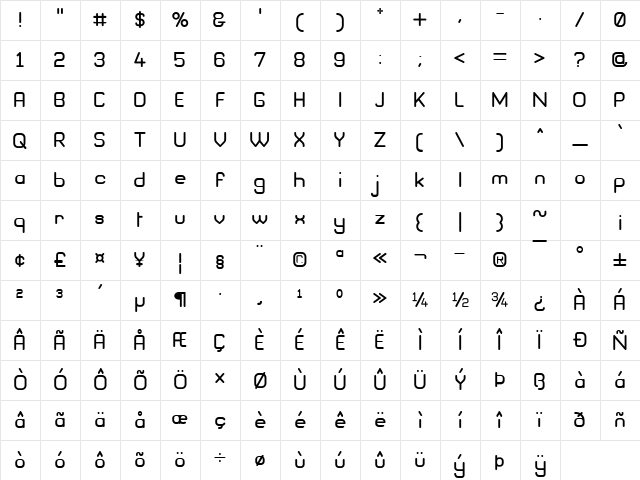
Brave New Era G98 Regular Free Font
Brave New Era G98 Regular
Design Context for Brave New Era G98
Brave New Era G98 is a composed and adaptable typeface that performs quietly and consistently across a wide range of design contexts.
Pro Tip: Use Brave New Era G98 in both headline and body roles to test its range before committing to a single application.